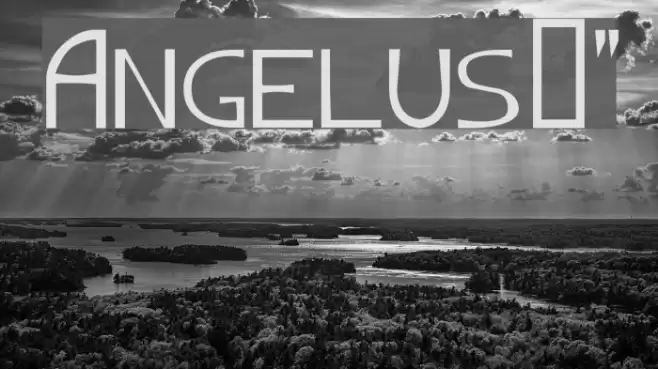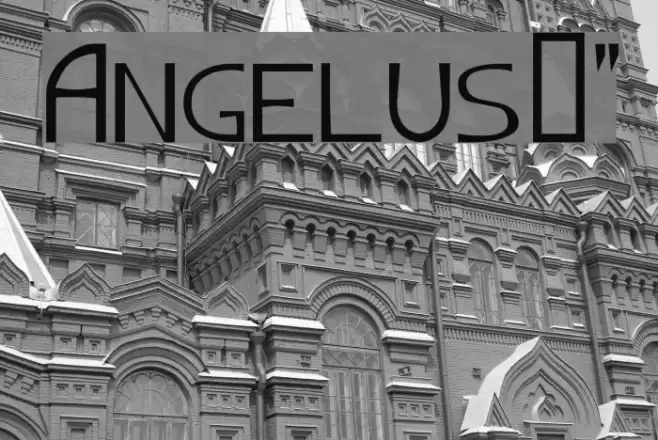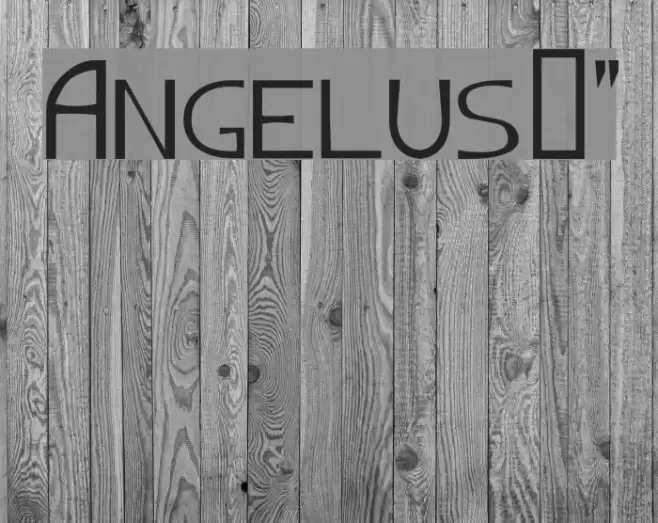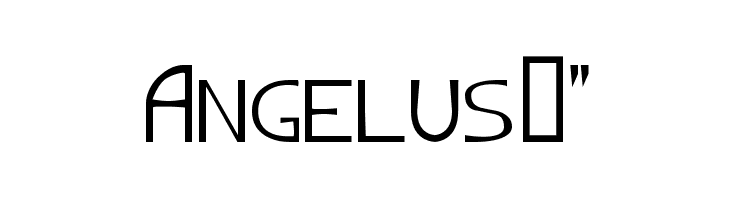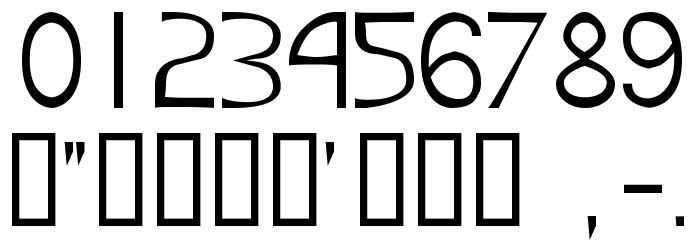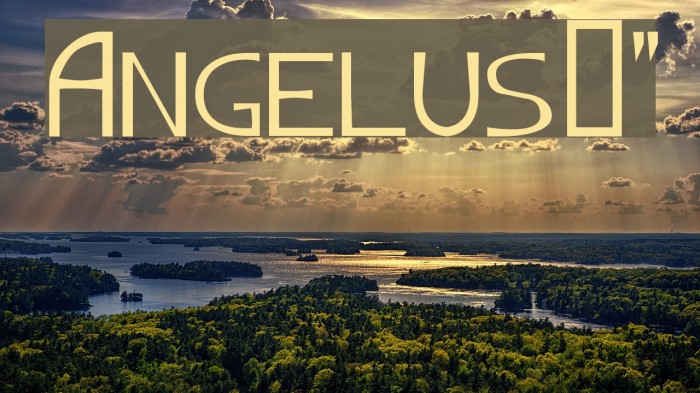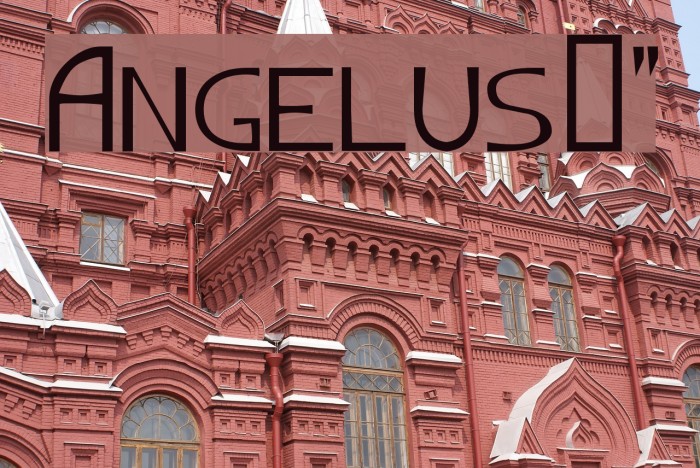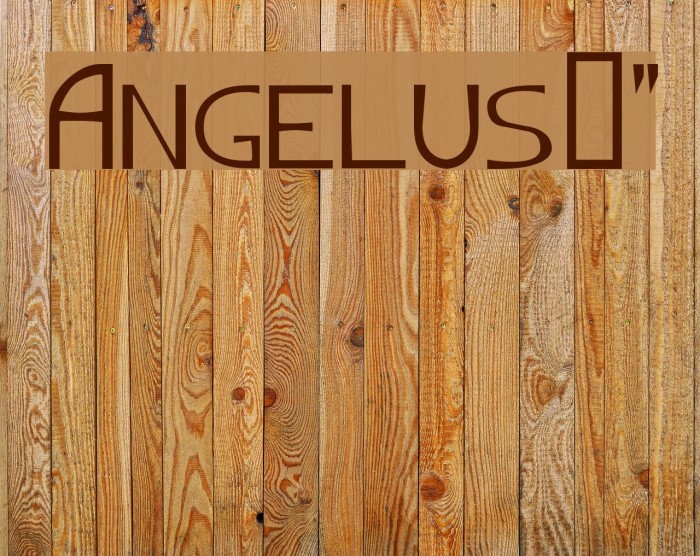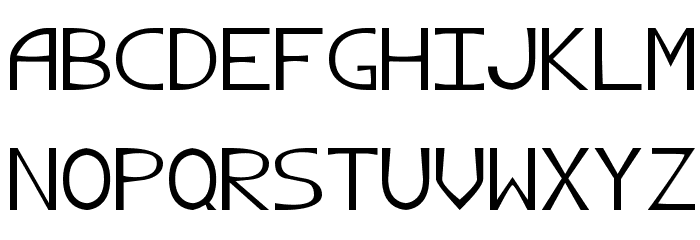
Angelus!" Font
Angelus!" Description
This font features a unique blend of geometric and organic shapes, creating a modern yet approachable aesthetic. The uppercase letters have a distinct angularity, with sharp edges and clean lines, while the lowercase letters maintain a more rounded and fluid form. The numerals are bold and easily distinguishable, with a consistent stroke width that ensures readability. Special characters are designed with the same attention to detail, providing a cohesive look across all glyphs. The overall design is balanced and versatile, making it suitable for a variety of applications.
A modern font with geometric and organic elements, offering versatility and readability from Handwritten fonts.
- Proposed Projects: Ideal for branding, advertising, and editorial design projects where a modern and approachable look is desired.
- Use Case: Headlines, Logos, Branding